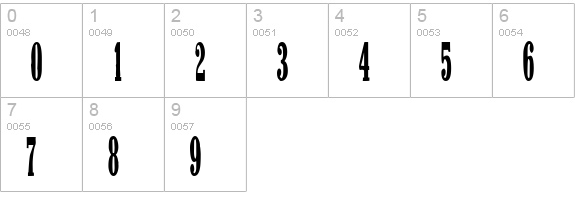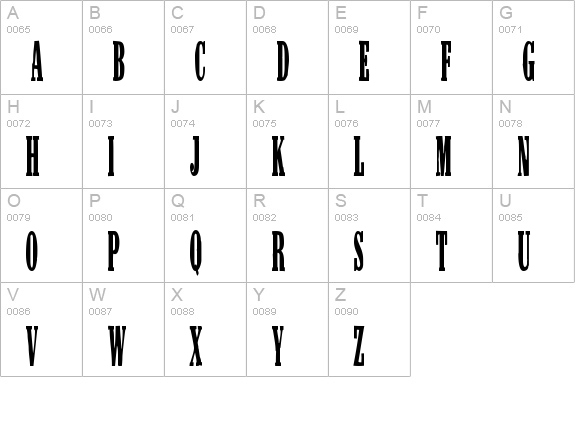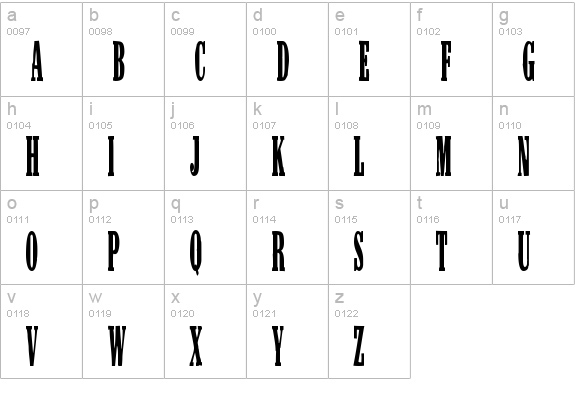
AppleScruffs font is a charming and versatile typeface that exudes a sense of modernity and sophistication. With its sleek lines and elegant curves, AppleScruffs is perfect for a wide range of design projects, from branding to marketing materials to social media graphics. This font strikes the perfect balance between professionalism and creativity, making it a must-have for any designer looking to make a statement. What's even better is that AppleScruffs font is available for free download at FontsMarket.com. That's right, you can access this beautiful font at no cost, making it an invaluable addition to your design toolkit. Don't miss out on the opportunity to elevate your projects with the timeless appeal of AppleScruffs font. Download it today and let your creativity soar!